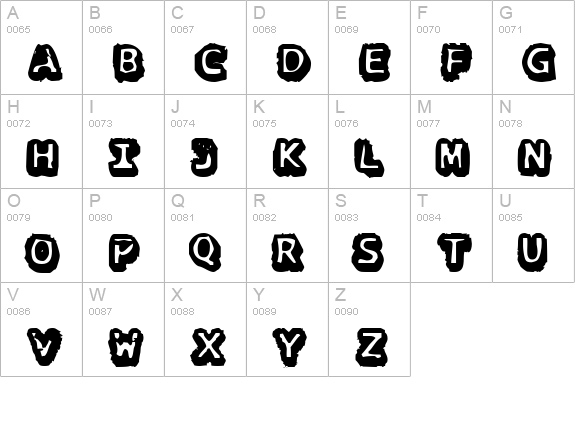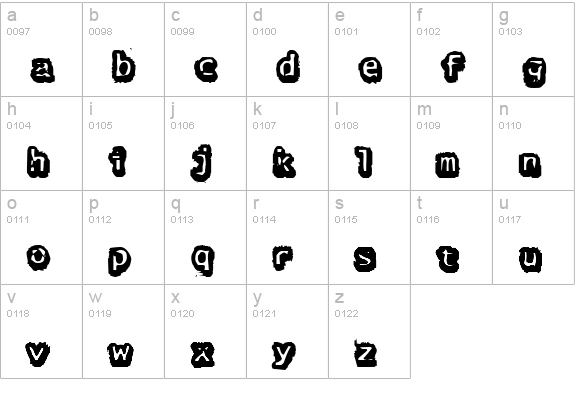
there goes the neighborhood Font Details
Introducing "There Goes the Neighborhood" font, a captivating and versatile typeface that is bound to make a bold statement in any design project. This font effortlessly combines the perfect balance between modernity and sophistication, making it an ideal choice for various creative endeavors. With its unique and eye-catching letterforms, "There Goes the Neighborhood" font adds a touch of elegance and personality to any design. Whether you're working on a logo, brochure, website, or even a poster, this font is sure to grab attention and leave a lasting impression. What makes "There Goes the Neighborhood" font even more appealing is the fact that it is freely available to download at FontsMarket.com. Yes, you read that right - completely free! Now you can enhance your designs with this exceptional font without any financial constraints. But don't let its affordability fool you. "There Goes the Neighborhood" font is crafted with the utmost care and attention to detail, ensuring that every character is perfectly balanced and visually pleasing. Its versatile nature allows it to adapt effortlessly to any design concept, making it a go-to choice for designers of all levels. Whether you're aiming for a sleek and modern look or a more vintage and nostalgic feel, "There Goes the Neighborhood" font has got you covered. With a wide range of weights and styles to choose from, you can easily find the perfect match for your project. So why wait? Discover the endless possibilities that "There Goes the Neighborhood" font has to offer. Download it for free today at FontsMarket.com and take your designs to the next level. Embrace this font's charm and let it transform your creations into true works of art.